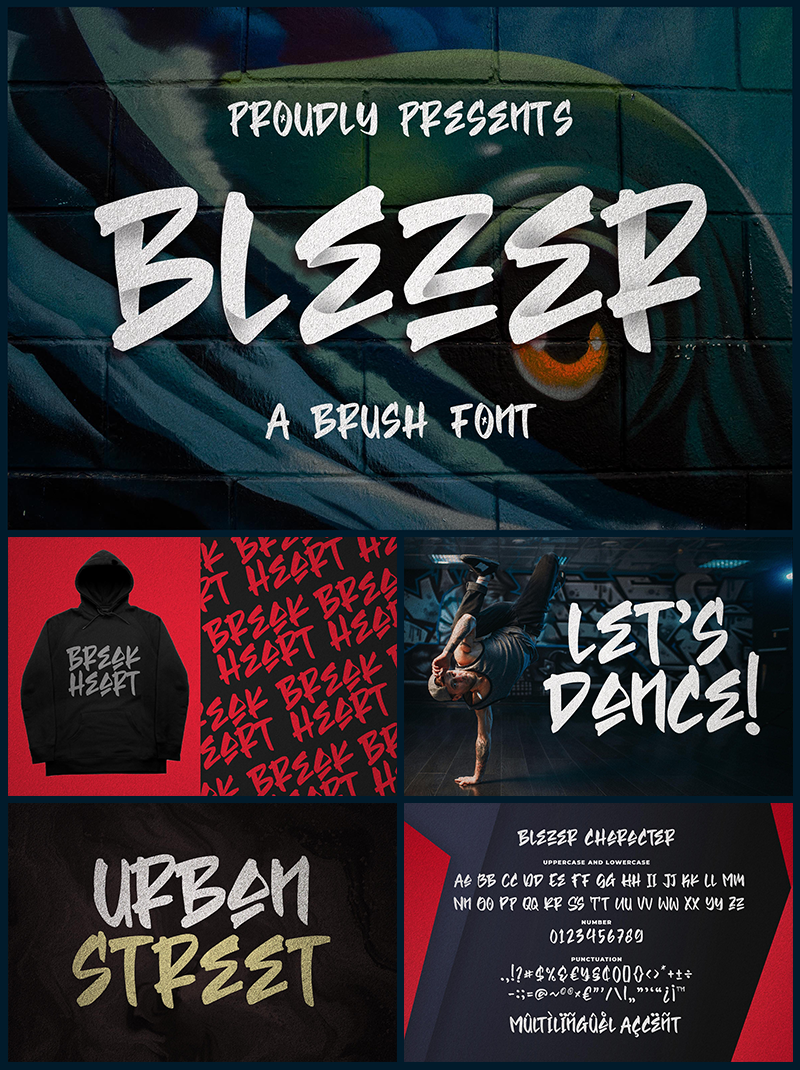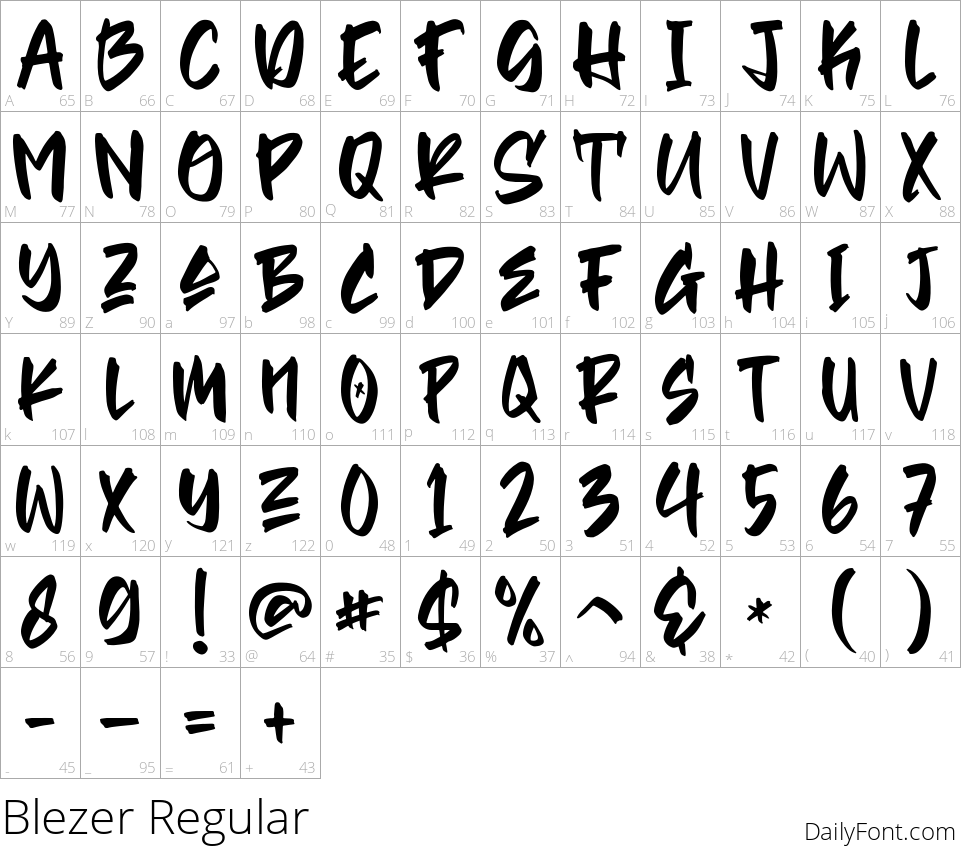
Blezer
Blezer is a striking and bold brushed display font designed to make a statement. With its chunky letterforms and dramatic flair, Blezer stands out in any design project, ensuring that your ideas capture attention. Whether you’re designing posters, logos, or social media graphics, this font adds a unique personality that resonates with viewers.
Ideal for creatives seeking to inject confidence and energy into their work, Blezer is perfect for both digital and print media. Its powerful aesthetic transforms ordinary text into compelling visual elements. Use Blezer to elevate your designs and communicate your message with unforgettable impact. Make your brand memorable with this unique typeface that speaks volumes and leaves a lasting impression on your audience.